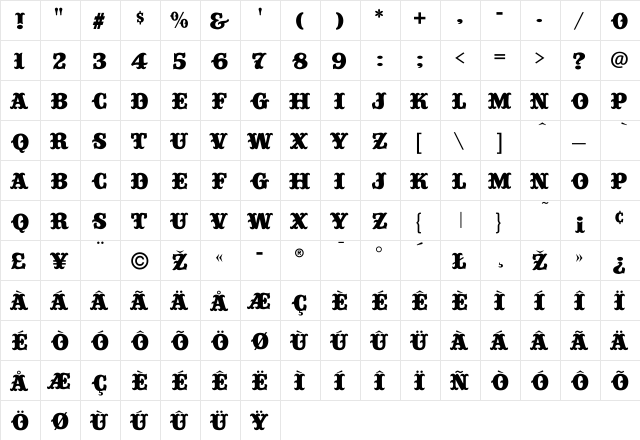
Circustime-Regular Regular
Design Context for Circustime-Regular Typeface
Circustime-Regular is a composed and adaptable typeface that performs quietly and consistently across a wide range of design contexts.